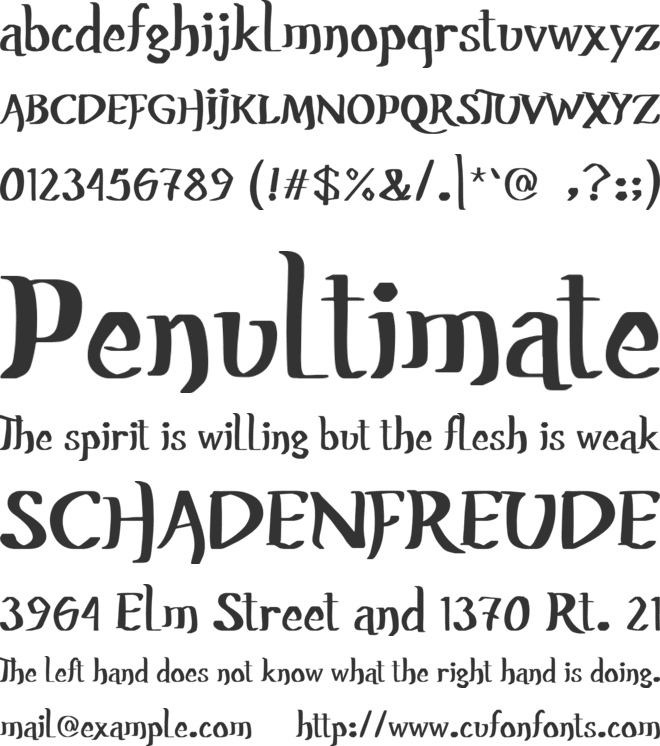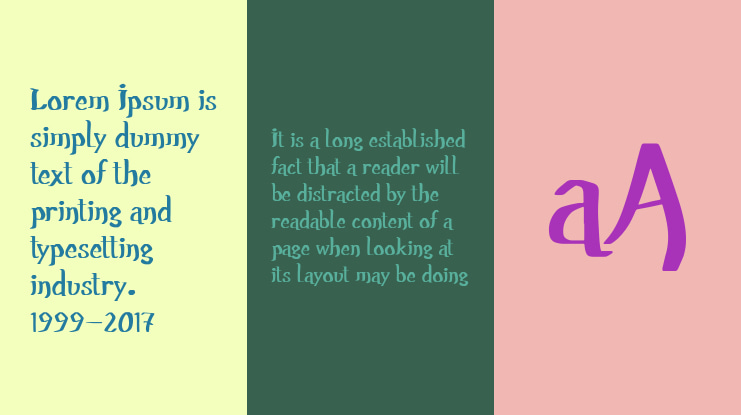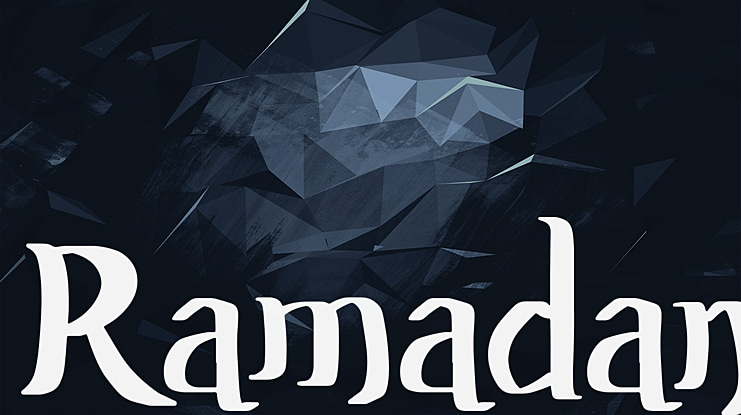
Ramadan Font
Ramadan is a modern display font that is readable, bold and stylish. It is defined by smooth curves and is perfect for fashion branding or editorial designs. Add it confidently to your projects, and you will love the results.